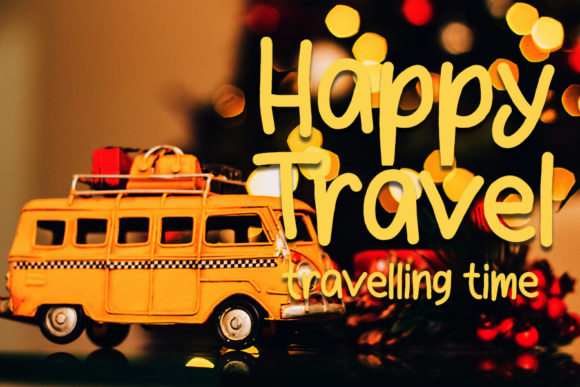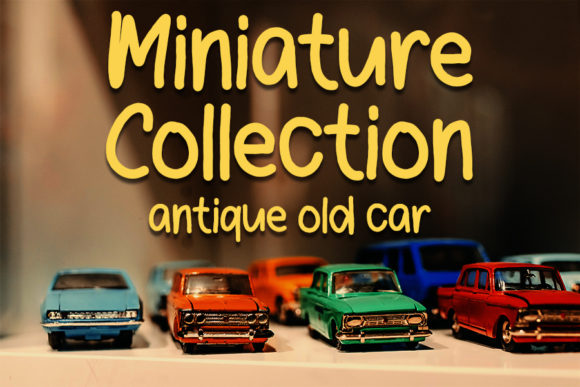
The Baby Bus Font: A Cute and Friendly Companion for Your Designs
I still remember the time I was working on a project for a children’s brand, and I was struggling to find the perfect font that would capture the playful and innocent spirit of the brand. The client was looking for something that would appeal to parents and kids alike, and I was determined to deliver. That’s when I stumbled upon the Baby Bus font, and it instantly fell into place. Its incredibly distinct and timeless style won my heart, and I’ve been using it ever since.
- ✨ The Baby Bus font is incredibly versatile and works well for both digital and print designs.
- ✅ Its handwritten style gives off a friendly and approachable vibe that’s perfect for brands looking to connect with their audience on a personal level.
- 💕 The font comes with a range of OpenType features, including glyphs and stylistic alternates, which allow for endless creative possibilities.
A Few Quirks to Keep in Mind
⚠️ While the Baby Bus font is generally a great choice, there are a few things to keep in mind. For example, some of the letters may appear a bit too condensed or stretched out, which can affect readability at smaller font sizes. 🤔 Additionally, the font may not be the best choice for very formal or professional designs, as its playful style may not be taken seriously.
The Story Behind the Baby Bus Font
The Baby Bus font was designed by a team of creatives who wanted to create a font that would capture the innocence and playfulness of childhood. Inspired by the world of children’s books and nursery rhymes, the font features a range of charming and whimsical characters that are sure to delight both kids and adults alike.
Q: What is the Baby Bus font best used for?
A: The Baby Bus font is best used for designs that require a friendly and approachable vibe, such as children’s brands, educational materials, and playful marketing campaigns.